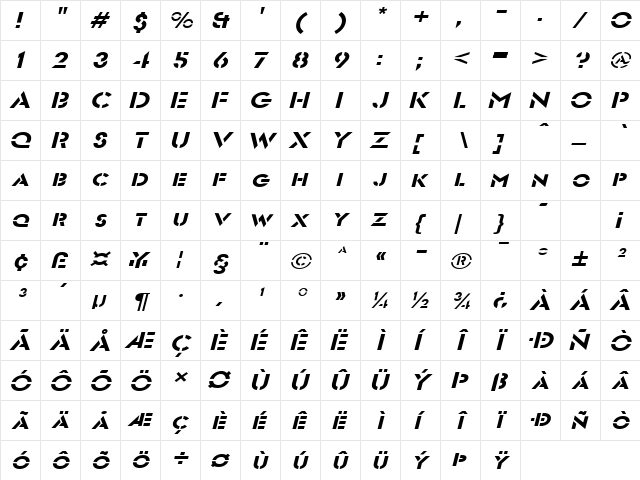
Stencil Sans-Extended Italic
Design Context for Stencil Sans-Extended Typeface
Stencil Sans-Extended borrows the utilitarian aesthetic of stencil lettering, with its characteristic cutaways and no-frills construction lending an industrial edge. Its italic angle brings a sense of urgency and motion to the letterforms.
A strong choice for packaging that needs edge, warehouse aesthetics, and rough-and-ready visual identities.
Pro Tip: Use Stencil Sans-Extended at large sizes on packaging, posters, or apparel where the stencil cutaways read clearly. Avoid small sizes where those gaps become visual noise.